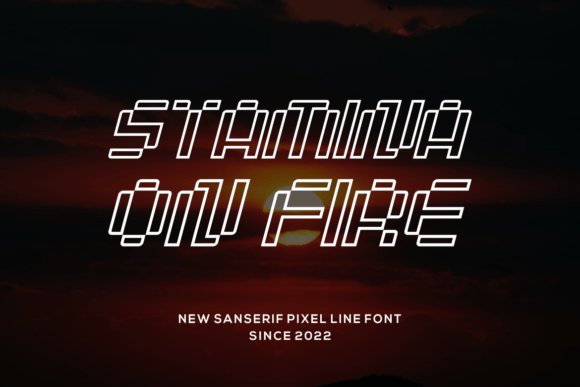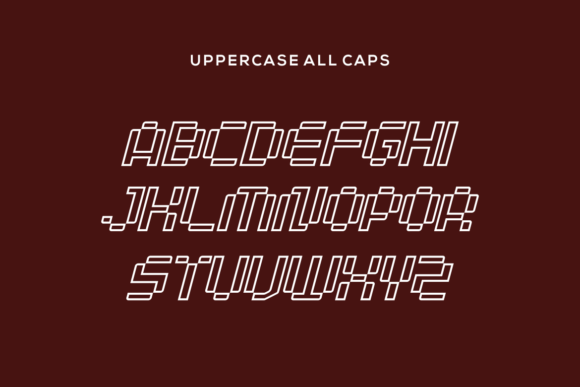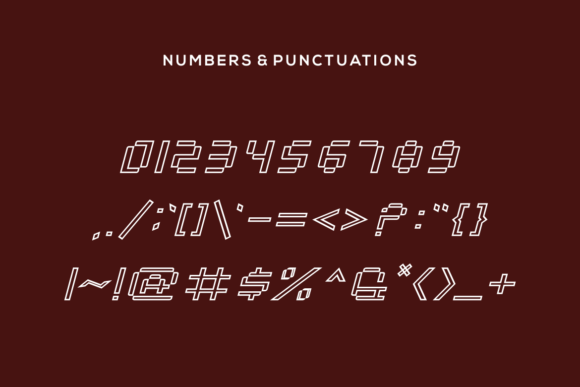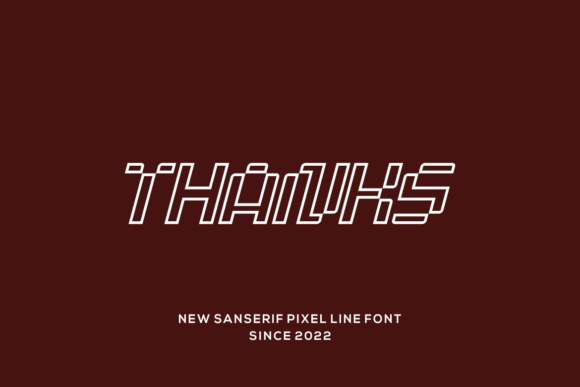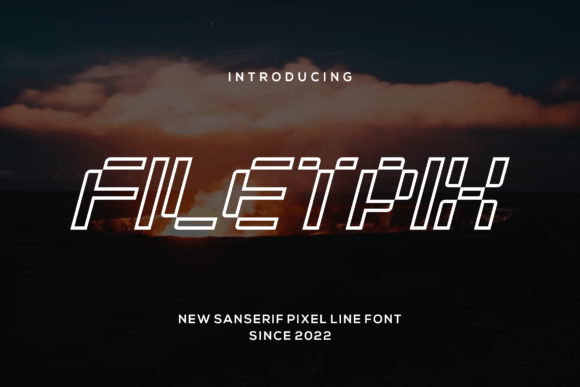
Introducing Filetpix Font: The Modern and Futuristic Display Font You Need
Are you looking for a font that can add a touch of modernity and futurism to your design projects? Look no further than Filetpix Font! This sleek and stylish display font is perfect for designers and crafters who want to create stunning visuals that stand out from the crowd. In this article, we’ll take a closer look at Filetpix Font, its features, and how you can use it to elevate your designs.
What is Filetpix Font?
Filetpix Font is a modern and futuristic display font designed to make a statement. Its sleek lines, geometric shapes, and futuristic feel make it perfect for a wide range of design projects, from posters and flyers to logos and branding materials. Whether you’re a professional designer or a crafter looking to add a personal touch to your projects, Filetpix Font is a great choice.
Key Features of Filetpix Font
So, what makes Filetpix Font so special? Here are some of its key features:
• Modern and Futuristic Design: Filetpix Font has a sleek and modern design that’s perfect for creating futuristic and high-tech visuals.
• Geometric Shapes: The font features geometric shapes and lines that give it a unique and stylish look.
• High-Quality Design: Filetpix Font is designed with high-quality and precision, ensuring that it looks great in any size or resolution.
• Easily Customizable: The font is easily customizable, allowing you to adjust the size, color, and style to fit your design needs.
How to Use Filetpix Font in Your Design Projects
Filetpix Font is versatile and can be used in a wide range of design projects. Here are some ideas to get you started:
• Posters and Flyers: Use Filetpix Font to create eye-catching posters and flyers that grab attention.
• Logos and Branding: Create a professional and modern logo for your brand using Filetpix Font.
• Social Media Graphics: Use Filetpix Font to create stunning social media graphics that stand out from the crowd.
• Web Design: Add a touch of modernity to your website with Filetpix Font.
Why Choose Filetpix Font?
So, why should you choose Filetpix Font for your design projects? Here are some reasons:
• Unique and Stylish Design: Filetpix Font has a unique and stylish design that’s sure to make your designs stand out.
• Easy to Use: The font is easy to use and customize, making it perfect for designers and crafters of all levels.
• High-Quality Design: Filetpix Font is designed with high-quality and precision, ensuring that it looks great in any size or resolution.
• Versatile: The font is versatile and can be used in a wide range of design projects.
In conclusion, Filetpix Font is a modern and futuristic display font that’s perfect for designers and crafters who want to create stunning visuals. Its sleek lines, geometric shapes, and futuristic feel make it perfect for a wide range of design projects. With its high-quality design, ease of use, and versatility, Filetpix Font is a great addition to any design project. So, add it confidently to your projects and you will love the results!